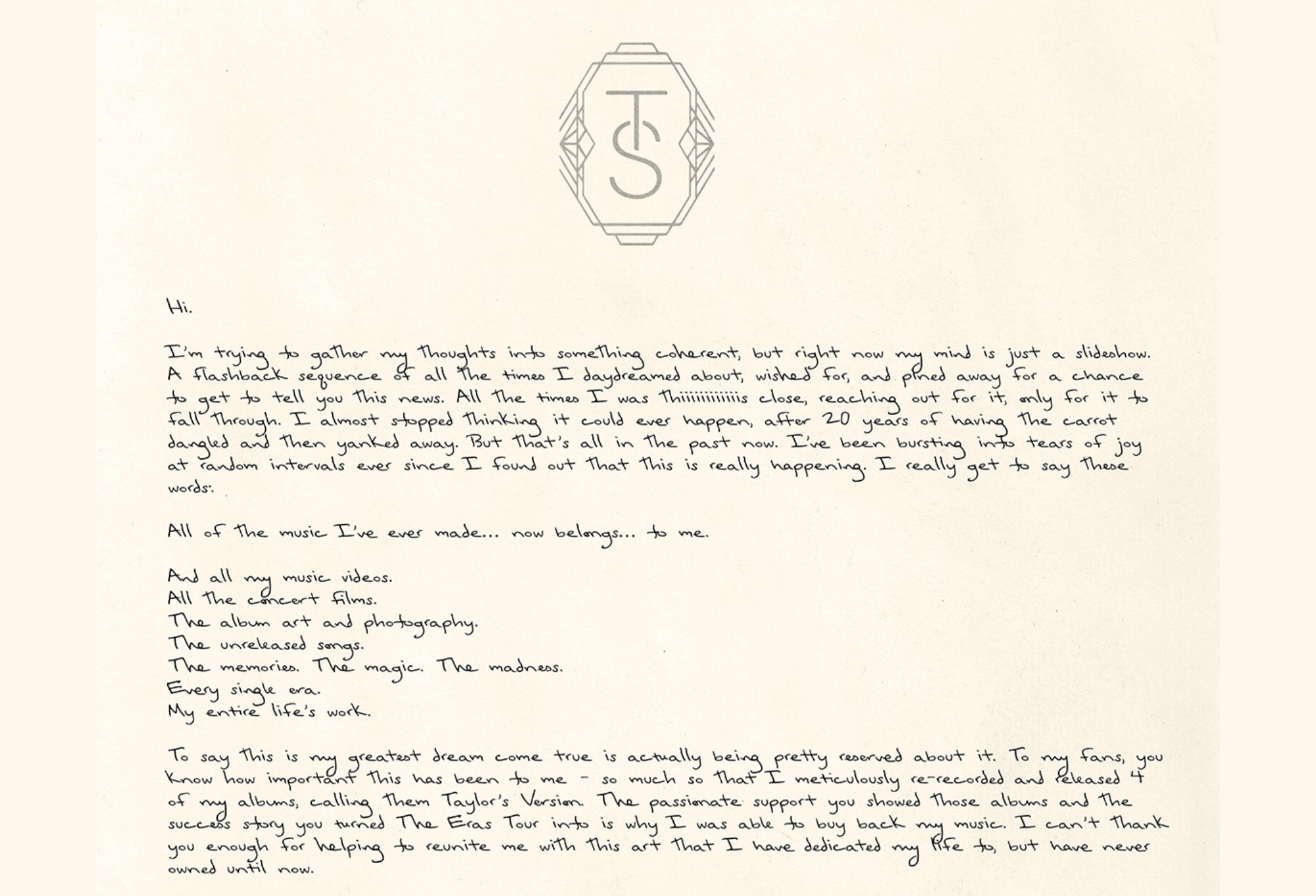
So, did Taylor Swift handwrite her (already iconic) letter to fans?
If not, then what?
Taylor Swift has finally bought back the masters of her first six albums in a move that came as a big surprise when everyone was expecting Reputation (Taylor's Version) to be announced instead. Taylor wrote a long letter to fans professing her elation over finally being able to own all of her back catalogue. It currently fills the screen when you visit her website, and is being shared by every news outlet (and Swiftie) across the internet. But everyone is arguing over whether Taylor handwrote her letter? I'm saying not, which raises another question – which font did she use?
Taylor's branding has included a wide variety of typefaces across her previous visual identity, mostly custom. Each 'era' (or album) uses a totally different font, chosen to match the visual vibe of the musical and personal style (here's what I think the re-record of Reputation might look like, if it ever gets made). These range from handwritten to serif in style and have included Taylor's own handwriting. But this letter is slightly different.
Though I've seen some Swifties arguing over which font she used and whether she handwrote the whole letter, Taylor actually appears using a bespoke font created out of her own handwriting. The letters and spacing are too uniform to be genuinely handwritten (especially when compared to some of her handwritten lyrics that are all over the internet), and although some fans are complaining it's hard to read – it is actually more legible than an organically handwritten letter might turn out.
You might think emulating this by making a font out of your own handwriting is out of reach for anyone but a Billionaire like Taylor. But this is easier to achieve than you'd imagine. There are plenty of tools across the internet that can turn your own handwriting into a font. An app like Calligraphr allows you to input your own handwriting and output it as a font. You can even add in different iterations of the same letter forms for the program to randomise to make it look more natural.
You can download many versions of Taylor Swift's handwritten fonts from across the internet if you're more into channelling Taylor herself. Just check the copyright on them before using. And you could use Adobe Illustrator's Retype tool to let AI find you a close match to all of the fonts used by Taylor across the years, just FYI.